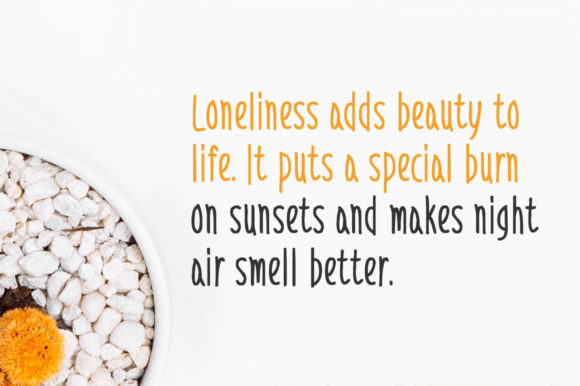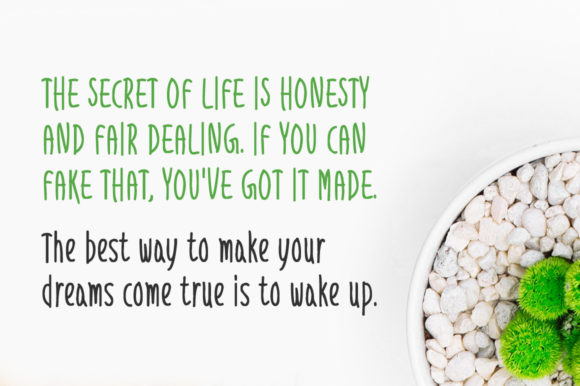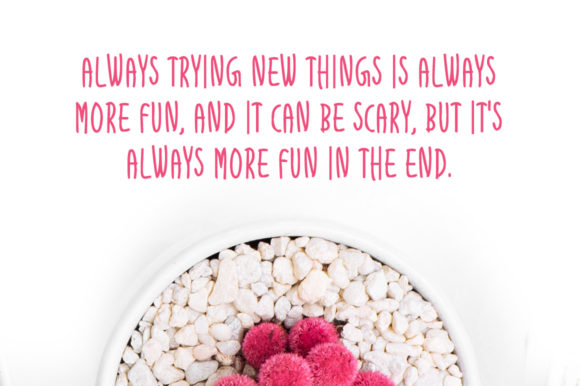
The Way of Life Font
About The Way of Life Font
The Way Of Life is a brand new handwritten font. It’s perfectly suited for stationery, logos, t-shirts, papers, print designs, website headers, photo frames, flyers, music covers, posters, image sliders, and much more.